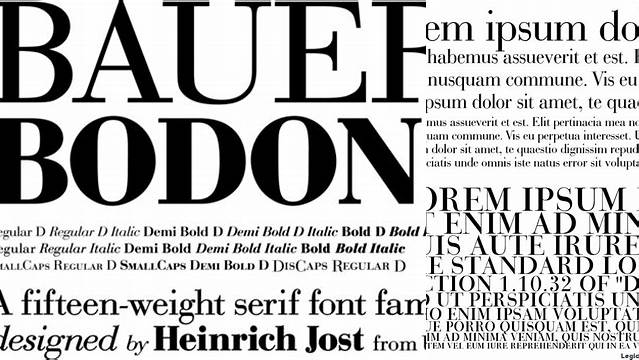
Hey guys! Ever wanted to add a touch of elegance and classic style to your designs? Well, you're in luck! Today, we're diving deep into the world of typography, specifically focusing on the magnificent Bauer Bodoni Titling Font, and the best part? You can get it free! This font is a true gem, known for its sharp serifs, high contrast, and timeless appeal. Perfect for everything from headlines to logos, this font is a must-have for any designer or creative enthusiast. So, let's get started and explore how you can snag this beauty without spending a dime. This article is your ultimate guide to everything Bauer Bodoni Titling Font, including where to download it legally and how to use it effectively. Let's make your designs pop!
H2: Understanding the Allure of Bauer Bodoni Titling Font
Okay, first things first, what makes Bauer Bodoni Titling Font so special? It's a classic for a reason, and understanding its characteristics will help you appreciate its power. The font is a member of the Bodoni family, created in the late 18th century by Giambattista Bodoni, an Italian typographer. What sets it apart is its high contrast between thick and thin strokes. This design gives it a sophisticated and elegant appearance. Its sharp serifs contribute to a clean and crisp look, making it ideal for both print and digital media. When you use this font, it immediately adds a touch of class to your projects. Think of it as the little black dress of fonts – always appropriate, always stylish. Its design is characterized by its vertical stress and a high x-height, which improves readability. The clarity of the characters is excellent, making it a versatile choice for a wide range of applications. The font's historical significance, combined with its visual appeal, has made it a beloved choice for designers. The design has been replicated and re-imagined over the years, but the basic forms remain consistent. You get a sense of timelessness when you use it. Whether it's for a luxury brand campaign, a wedding invitation, or a book title, the Bauer Bodoni Titling Font is well-suited for the task. It's a testament to how good design can transcend time and trends. The choice of this font speaks volumes about your design sensibilities and taste. It tells viewers you value elegance and precision. So, embrace the Bauer Bodoni Titling Font and see your projects transform.
H2: Exploring the Features of Bauer Bodoni Titling Font
Let's explore the specifics of what makes Bauer Bodoni Titling Font such a powerful tool. This font is known for its high contrast. That's the noticeable difference between the thick and thin strokes of the letters. This contrast gives the font a sophisticated and elegant appearance. Its sharp serifs and clean lines create a crisp and clear look. The font's design is best suited for headlines, titles, and short blocks of text, rather than long passages. Its high x-height enhances readability. The clarity of individual characters ensures that they are easily distinguishable, even at smaller sizes. The font's vertical stress is a defining feature, giving it a classic, timeless quality. The design's balance is very important. It creates a sense of visual harmony. Bauer Bodoni Titling comes in several variations, including regular, bold, and italic, which lets you add different design styles and variations to your projects. Its versatility makes it ideal for a wide range of applications, from branding to editorial design. In branding, the font can be used to project a sense of luxury and refinement. In editorial design, it can make headlines stand out and capture attention. The choice of this font shows an appreciation for design principles and a love for classic style. The features of this font are what make it a favorite among professionals.
H2: Identifying the Right Usage of Bauer Bodoni Titling Font
Knowing how to use the Bauer Bodoni Titling Font is just as important as getting it. This font shines best in specific contexts. First off, consider using it for headlines, titles, and headings. Its bold look is perfect for grabbing attention. You can use it in logos and branding materials. It projects a sense of sophistication and elegance. It's also great for creating a luxurious feel in your designs. Use it on posters, flyers, and invitations. Its strong presence will elevate your project. Make sure to pair it with a complementary font for body text. This creates a balance between your designs. It is ideal to use it when you want to evoke a sense of luxury, tradition, or prestige. Think about luxury brands, classic publications, and high-end events. Steer clear of using it for long blocks of text, as it might become difficult to read. Consider the background of your design, as the font performs best on simple backgrounds, allowing the font to stand out. Experiment with different sizes and weights to find the perfect look. Understanding when and how to use the Bauer Bodoni Titling Font will ensure your designs are effective and visually stunning. Take the time to study how it can be used effectively, and then implement these things to make your designs a lot better.
H2: Bauer Bodoni Titling Font: Applications in Design
Let's dig into the practical side and see how you can use the Bauer Bodoni Titling Font across different design applications. First, think of branding and logo design. This font is great for brands that want to communicate luxury, elegance, and sophistication. Imagine a high-end fashion label or a luxury hotel. You can use it for print design, such as magazines, books, and brochures. Its bold presence makes headlines and titles stand out. This is also great for wedding invitations and other special events. It adds a touch of class and elegance. In website design, use the font to create a strong first impression. Use it for headings and other key text elements. The font will also work perfectly for posters and advertisements, especially those aiming to attract attention. Remember, you must make sure you pair it with a complementary font for body text. This way, you will improve the overall readability. In each of these applications, the Bauer Bodoni Titling Font can take your design projects to the next level. By using it correctly, you will be able to boost the effectiveness of your designs.
H2: Typography Basics: Enhancing Bauer Bodoni Titling Font Usage
To get the most out of Bauer Bodoni Titling Font, it helps to have a solid understanding of typography basics. Let's start with kerning. This is the adjustment of space between individual letters to improve the overall appearance and readability of text. Adjust the spacing between the characters of your text. Then comes leading, which refers to the space between lines of text. Make sure your leading is set correctly so your text is easy to read. Another important thing is tracking, which adjusts the space between all the letters in a word or block of text. Then think about contrast. The Bauer Bodoni Titling Font is all about contrast. Use it with care and precision. Consider using it with a complementary font for body text. This will add visual variety. Experiment with different font sizes and weights. This will help you create the right visual impact. Pay attention to the alignment of your text. Using these basic typography principles will make the Bauer Bodoni Titling Font stand out. Make the most of the font by understanding the fundamentals of design and typography.
H2: Bauer Bodoni Titling Font Alternatives: Exploring Similar Fonts
While Bauer Bodoni Titling is fantastic, you might want to consider some alternatives for variety or when it doesn't quite fit. Let's look at some similar fonts. First, you have Didot. It is another classic font family with a high contrast and sharp serifs. Then there is the Modern No. 20. This one is another great choice. It has a similar elegant look with a distinct personality. Another option is the Playfair Display. It's a free, open-source font that is similar to Bauer Bodoni Titling. Its design is specifically for headlines and large text. Consider using the Caslon family. It is a serif font with a slightly different feel. There are also fonts like Trajan Pro, which is popular for its classic and timeless appeal. In addition, there is the Garamond family. It offers a similar level of sophistication and elegance. These fonts provide different features and benefits. When choosing an alternative, consider the project's design style. Consider the overall tone of the project. Always check the licensing terms. This is very important. By exploring different fonts, you can broaden your design possibilities and ensure the best match for your project. Take your time to compare them and choose the one that works the best.
H2: Bauer Bodoni Titling Font: The Power of Typography
The Bauer Bodoni Titling Font showcases the power of typography in design. Typography involves selecting and arranging typefaces. You can use it to enhance the visual appeal. The font has the power to convey a message and set a tone. Typography can influence the way the audience reacts. The font evokes elegance. It also sets a tone of luxury and sophistication. By using the Bauer Bodoni Titling Font, you can create a specific feeling. You will be able to evoke a reaction. You can use typography in headlines and titles. Typography can draw attention. The correct use of typography can make your designs more effective. It can influence the audience. You must understand the power of typography. By understanding typography, you can use the font better. You can make your designs more impactful.